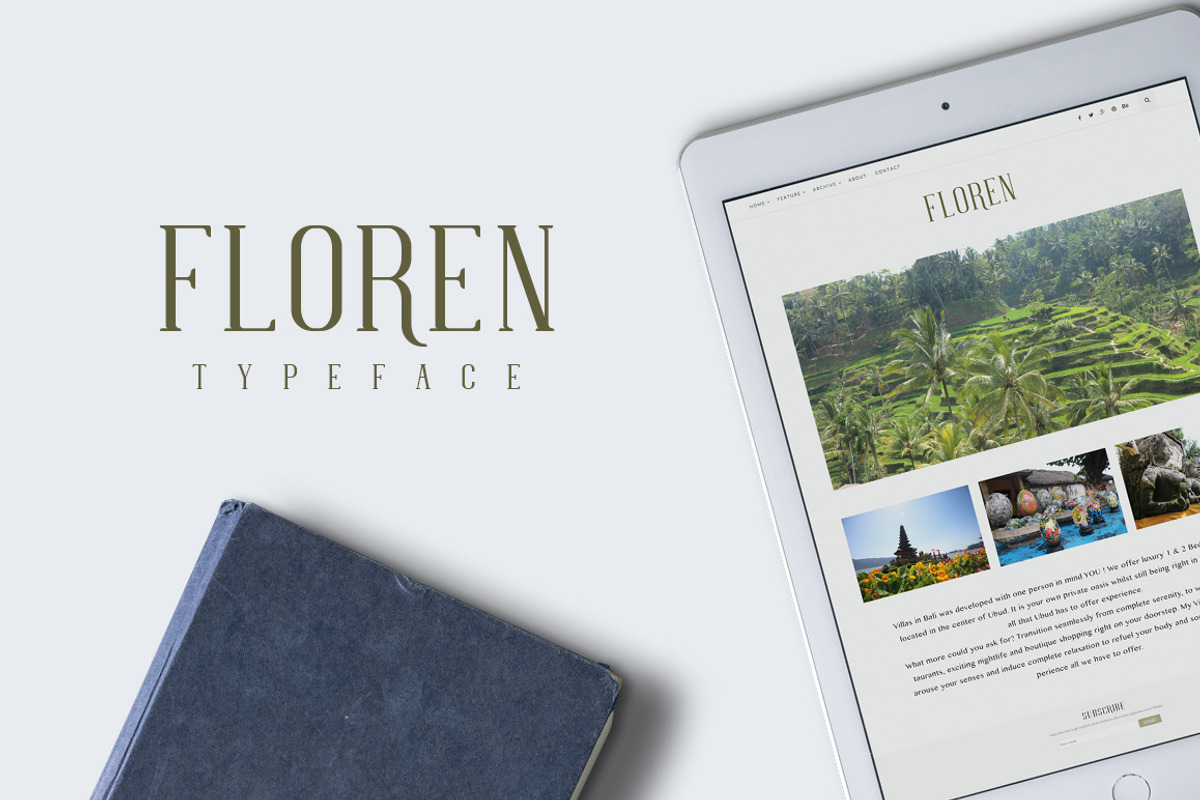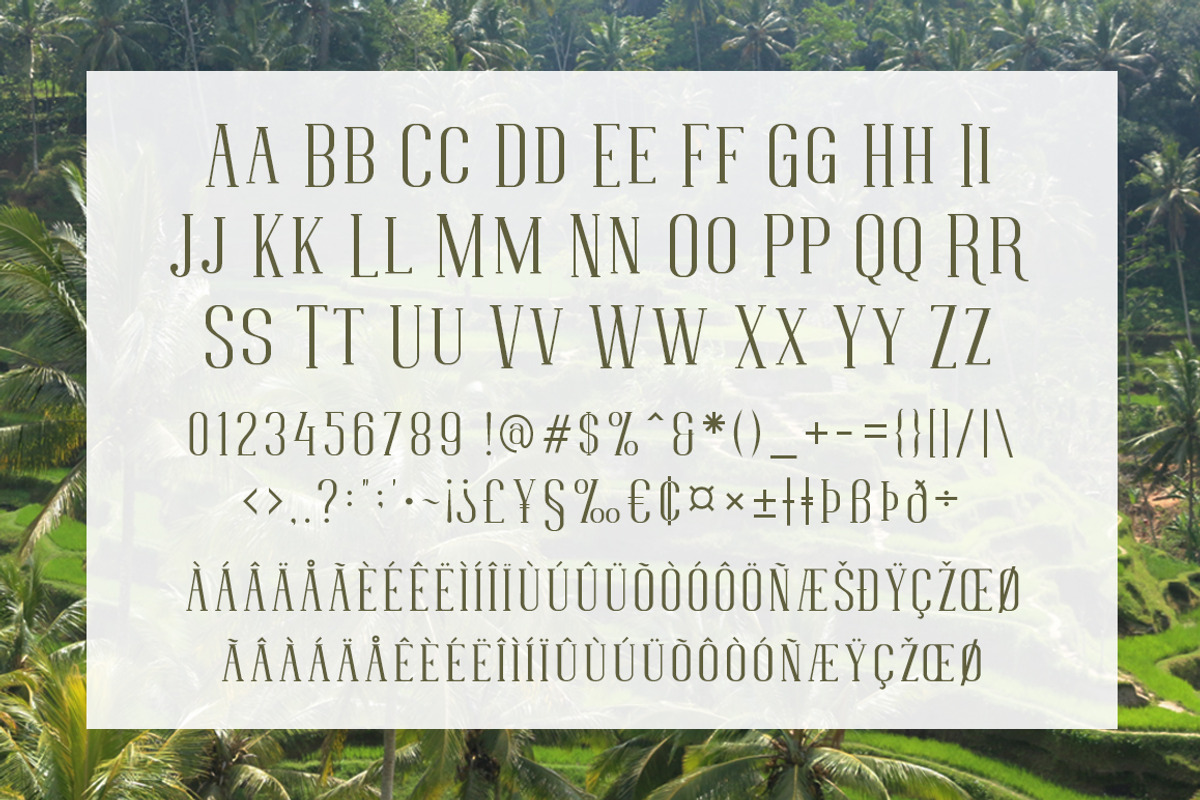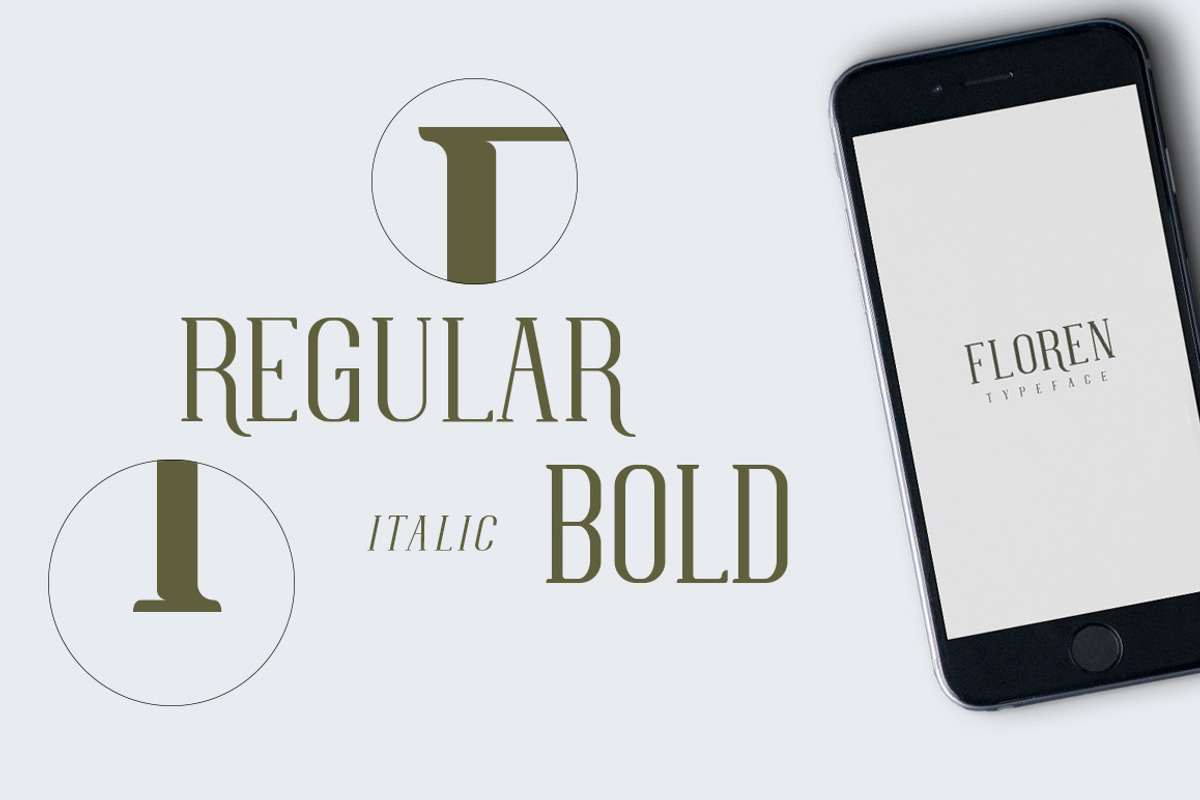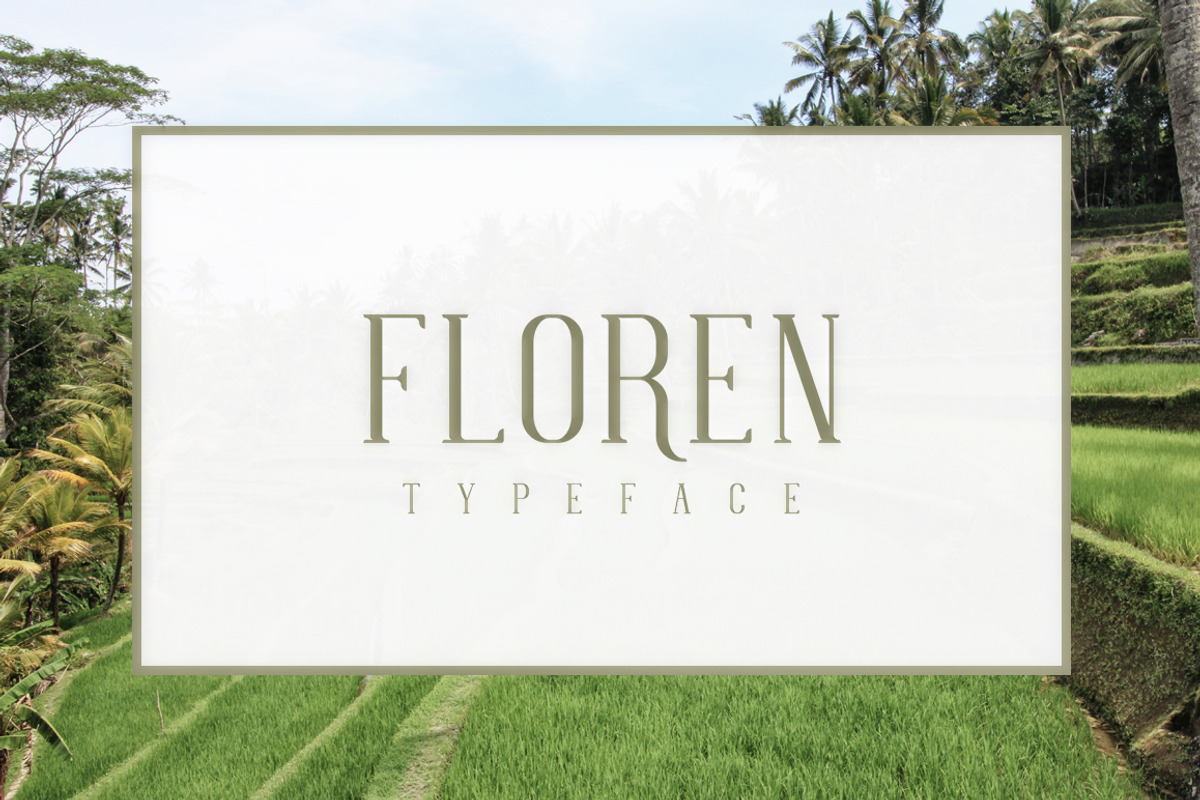
FLOREN TYPEFACE
FLOREN TYPEFACE by alit design is a font selected for branding, posters, packaging, typography.
- Character Set A-Z
- FLOREN Regular
- FLOREN Italic
- FLOREN Bold
Why FLOREN TYPEFACE is worth a look
FLOREN TYPEFACE by alit design fits naturally into Branding, posters, packaging, typography.